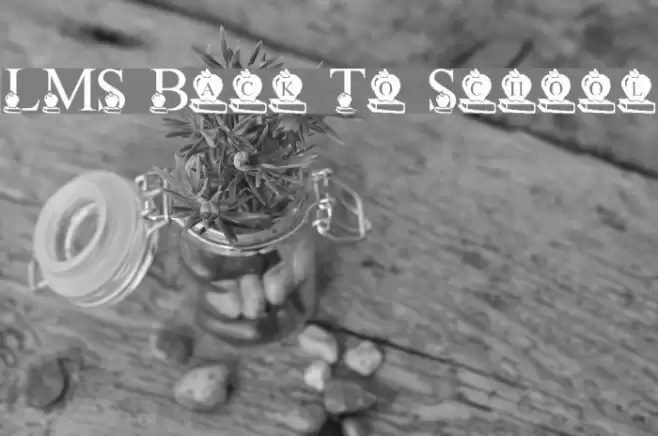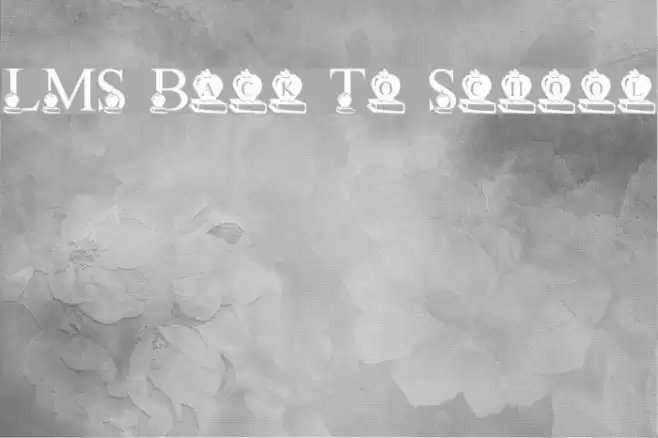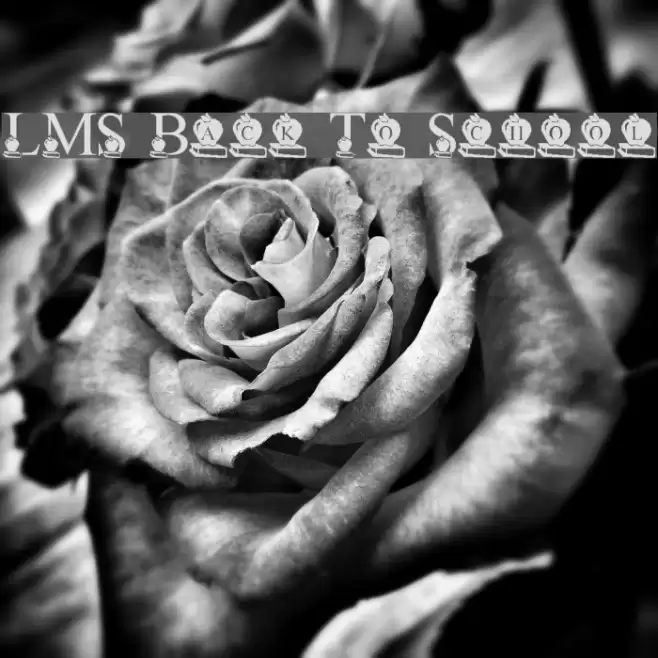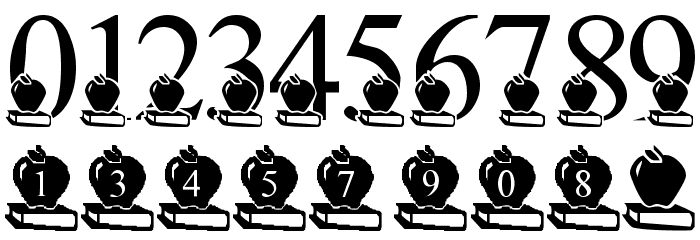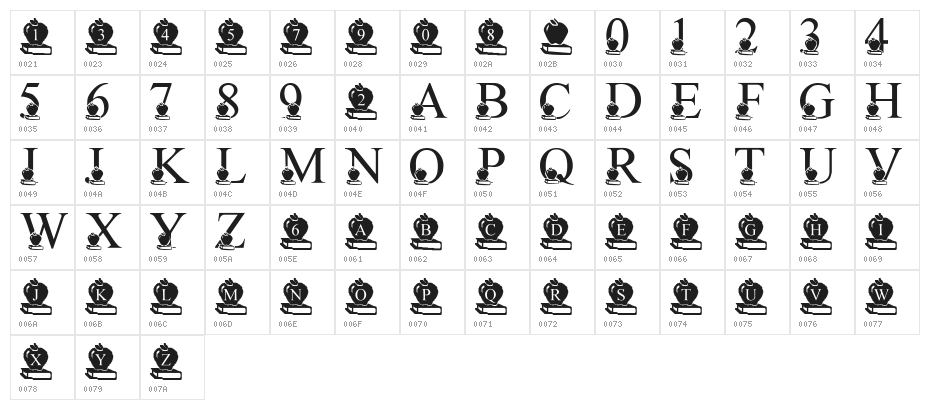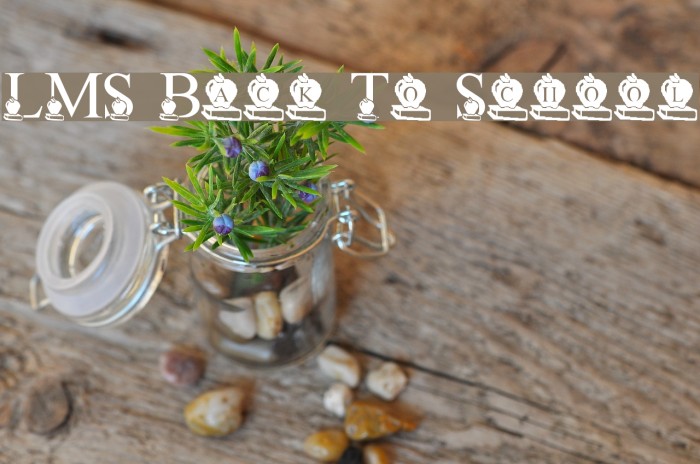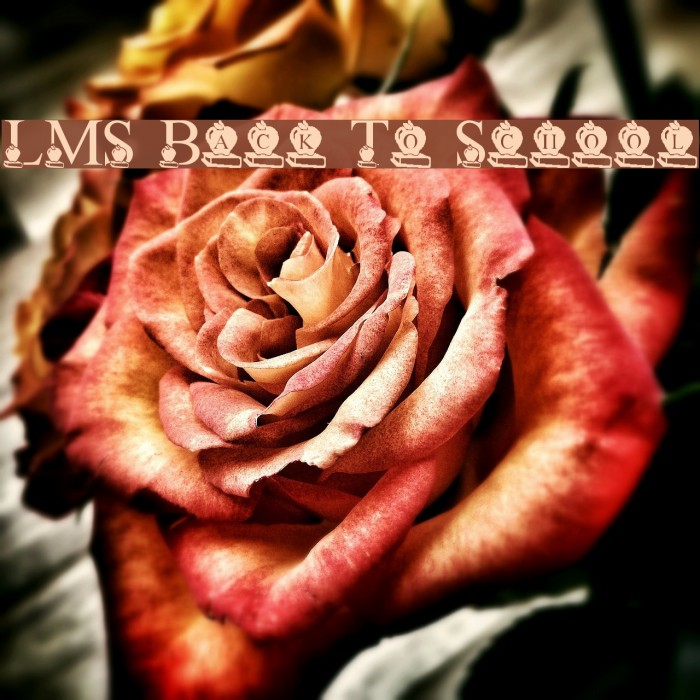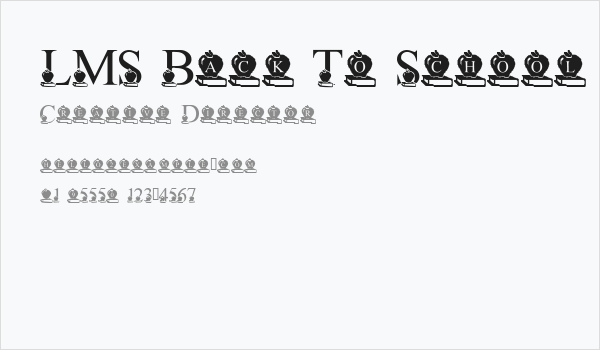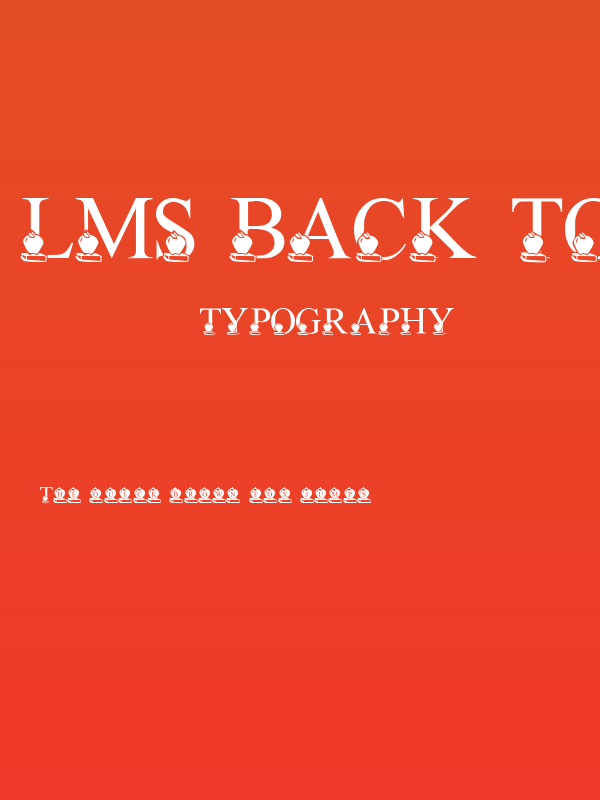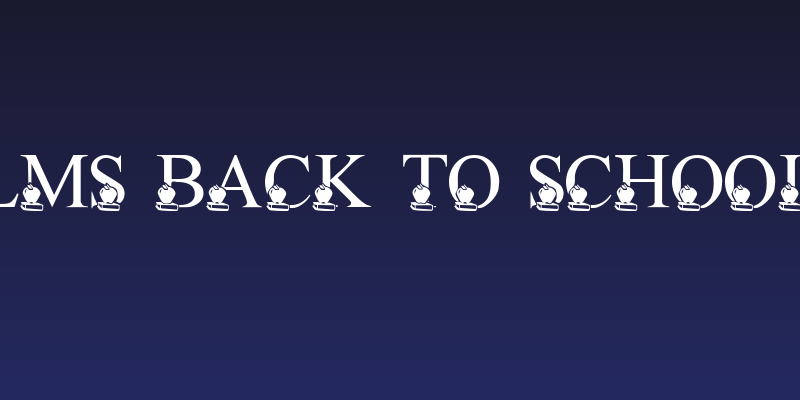
LMS Back To School Font
LMS Back To School Description
This decorative font features a playful and educational theme, incorporating elements like apples and books into the design of each character. The uppercase and lowercase letters are bold and stylized, with a distinct school-related motif. The numerals and special characters follow the same thematic design, making the font ideal for projects related to education or children's materials. The overall appearance is whimsical and eye-catching, with a strong emphasis on thematic decoration.
A playful, school-themed decorative font with apple and book motifs from Uncategorized fonts.
- Proposed Projects: Ideal for educational materials, children's books, school event posters, and playful designs.